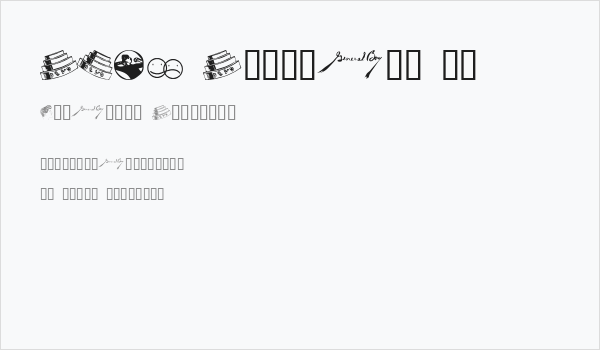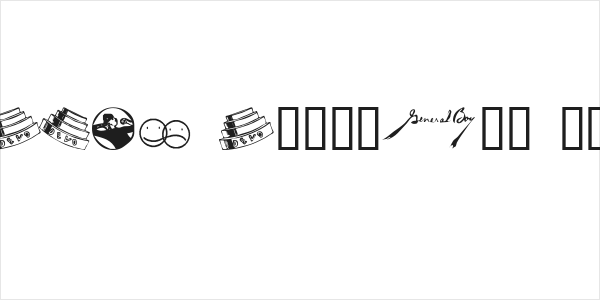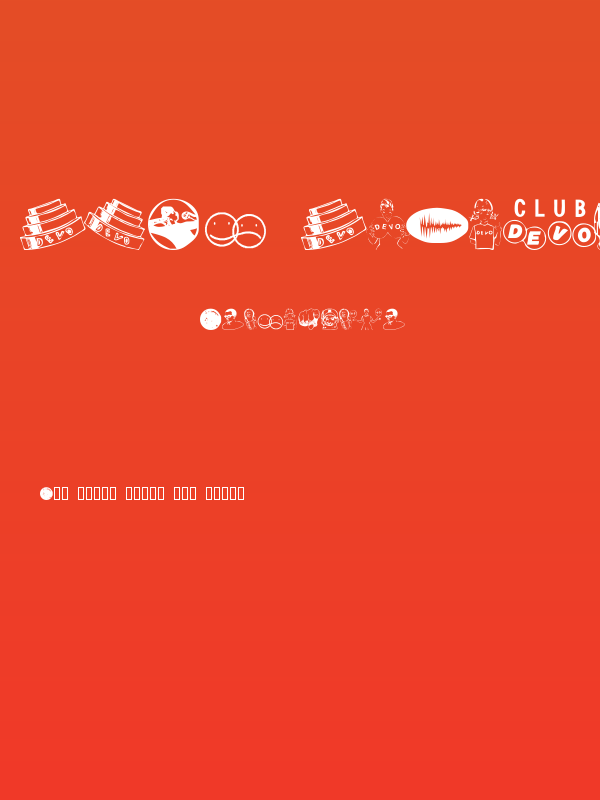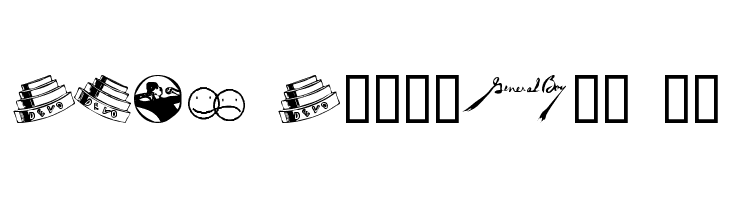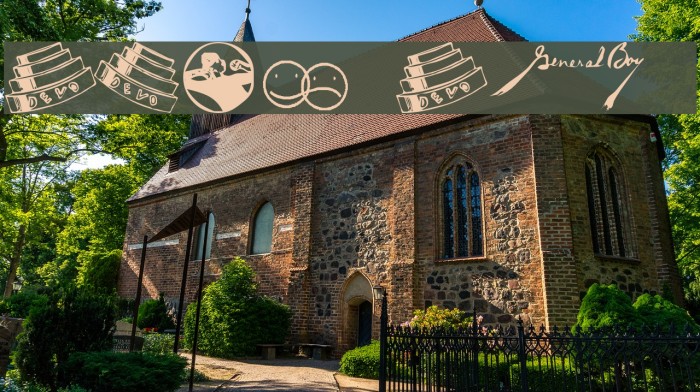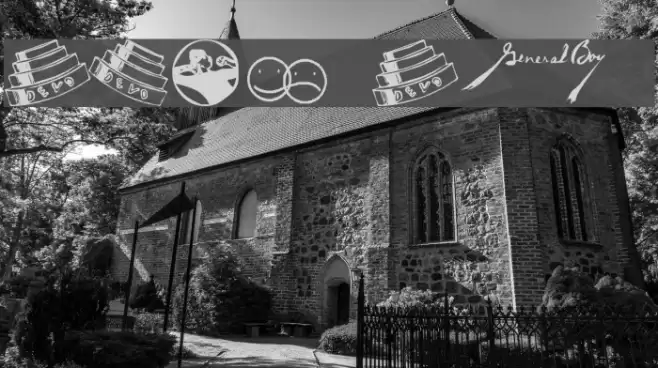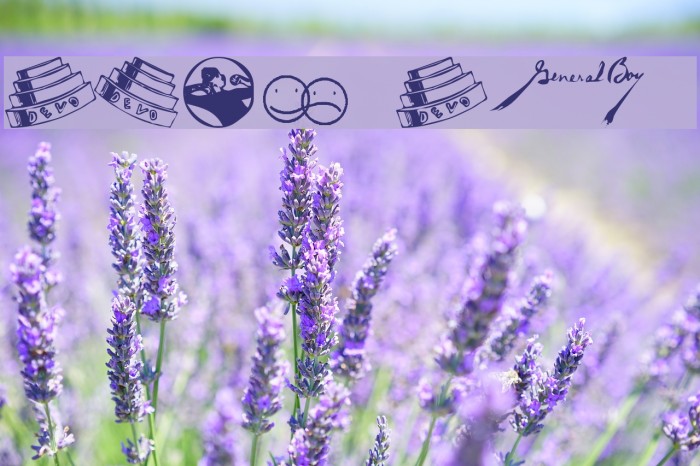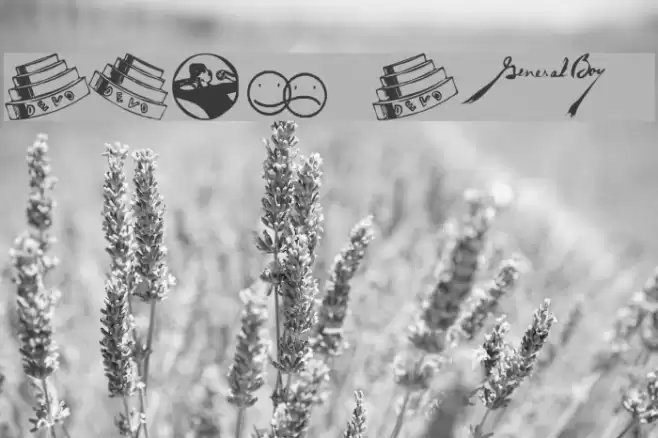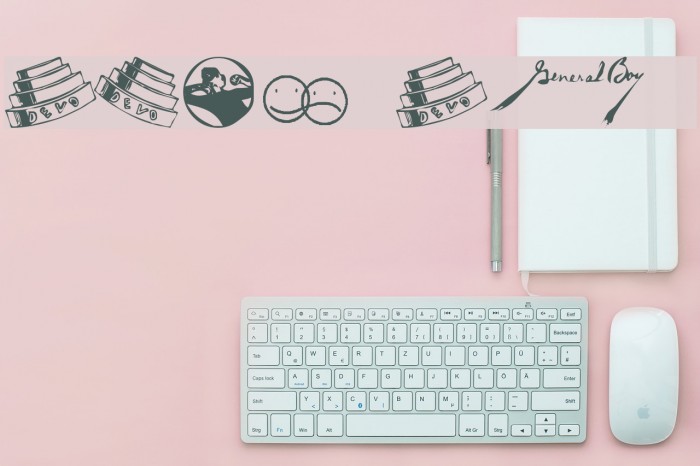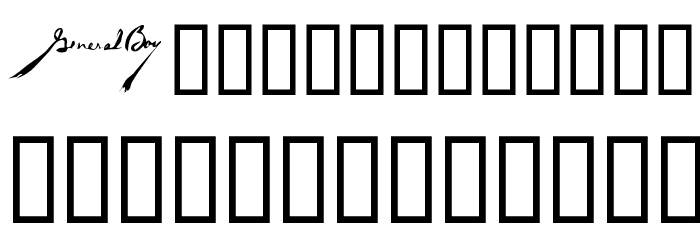
DEVO Dingbats 10 Font
DEVO Dingbats 10 Description
This collection of dingbats features a variety of playful and eclectic symbols inspired by pop culture and retro aesthetics. The designs include stylized images of people, objects, and abstract shapes, each with a unique and whimsical flair. The characters are bold and visually striking, making them ideal for creative projects that require a touch of nostalgia or humor. The set includes a mix of detailed illustrations and simple, iconic graphics, offering versatility for various design needs.
| Overall Style | Retro, Playful, Eclectic |
| Use Case | Logos, Posters, Branding |
| Proposed Projects | Ideal for creating retro-themed posters, album covers, or quirky branding materials. |